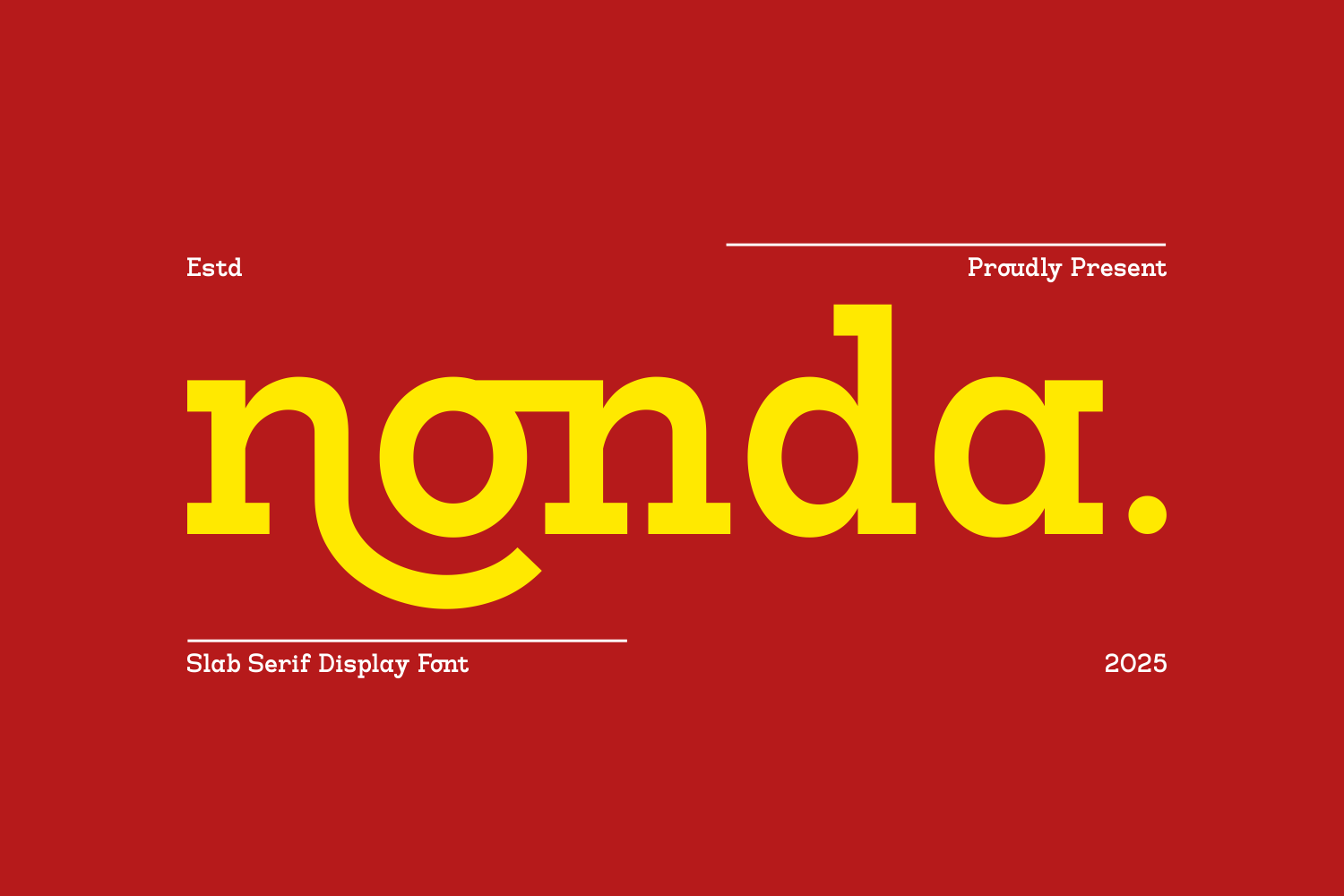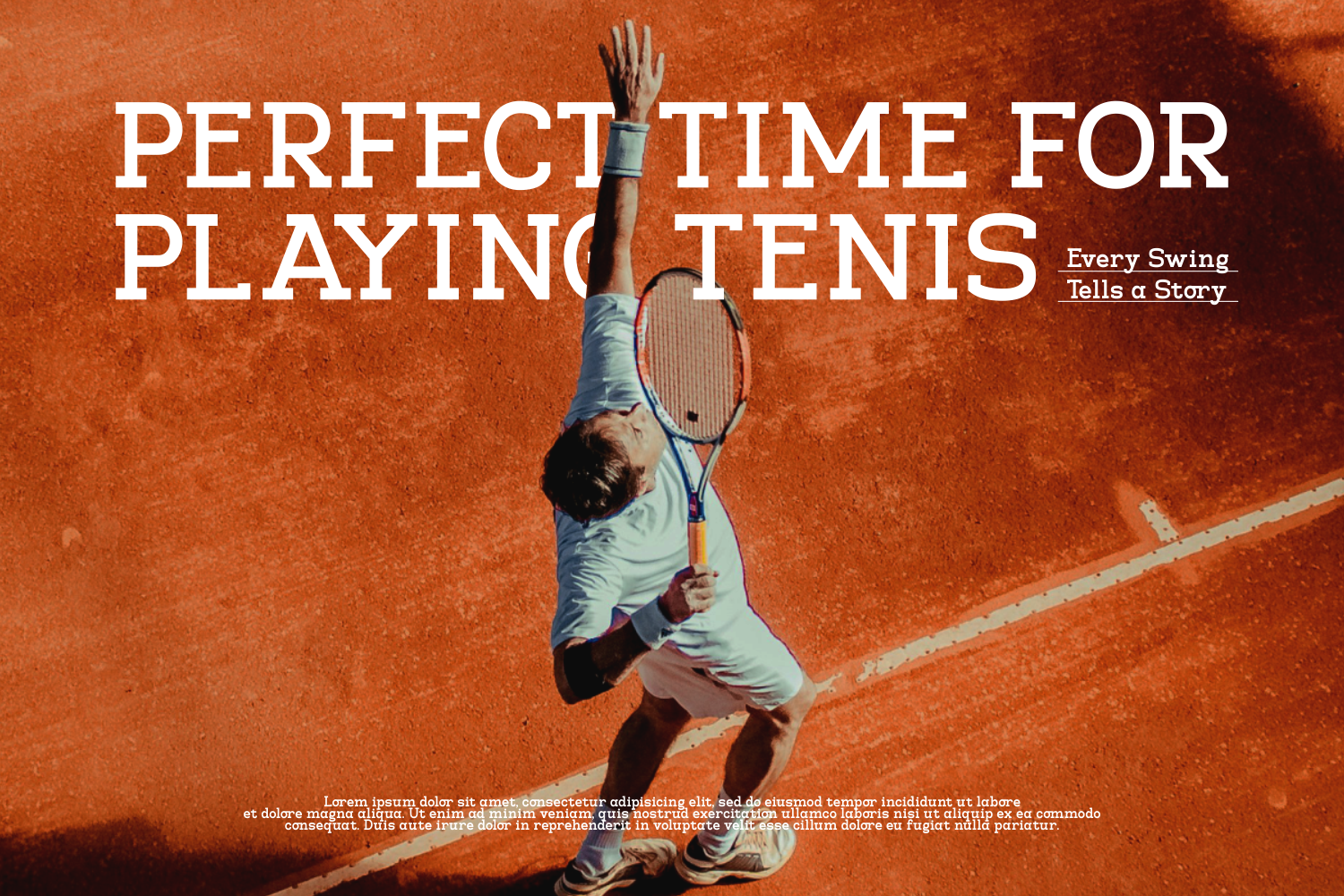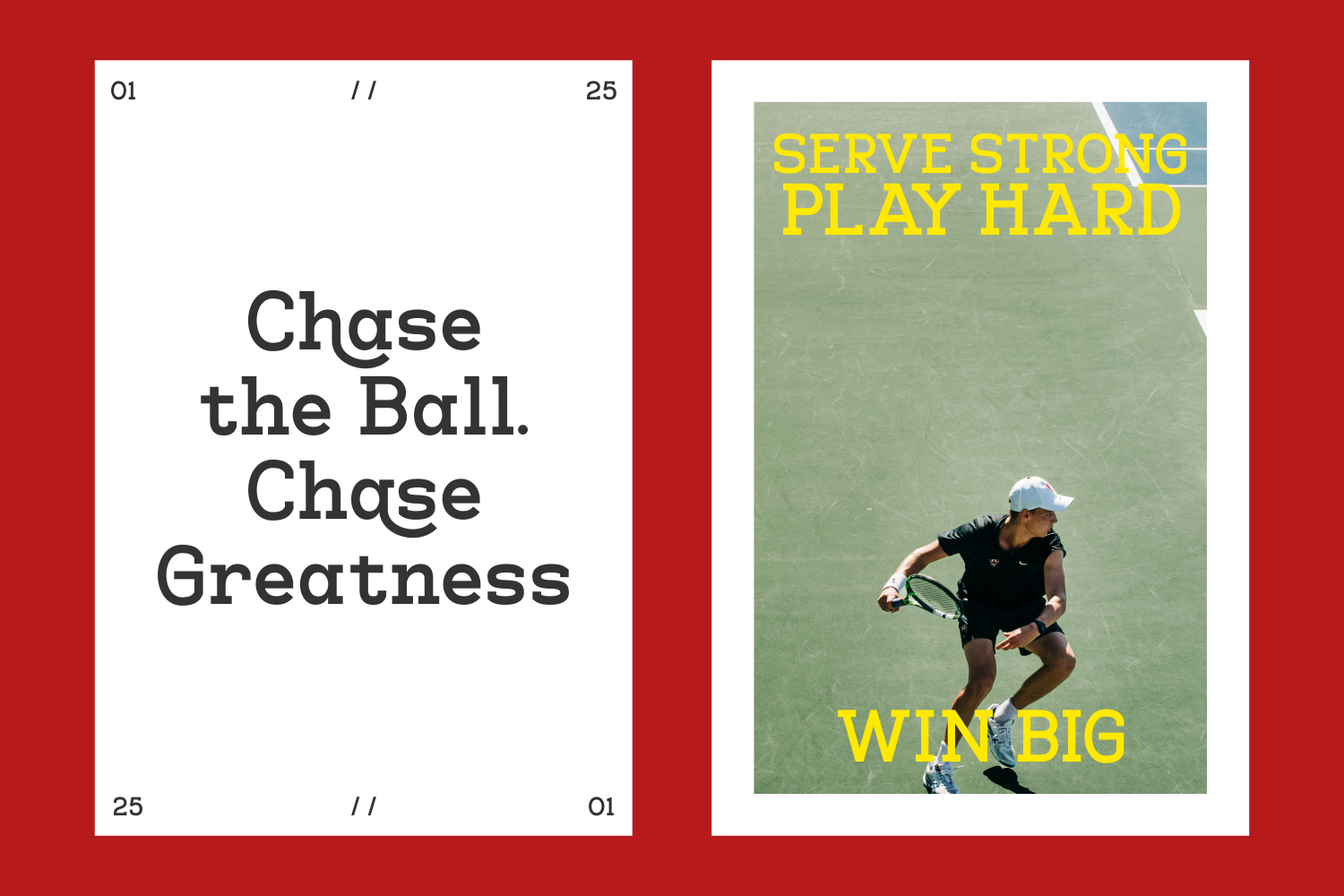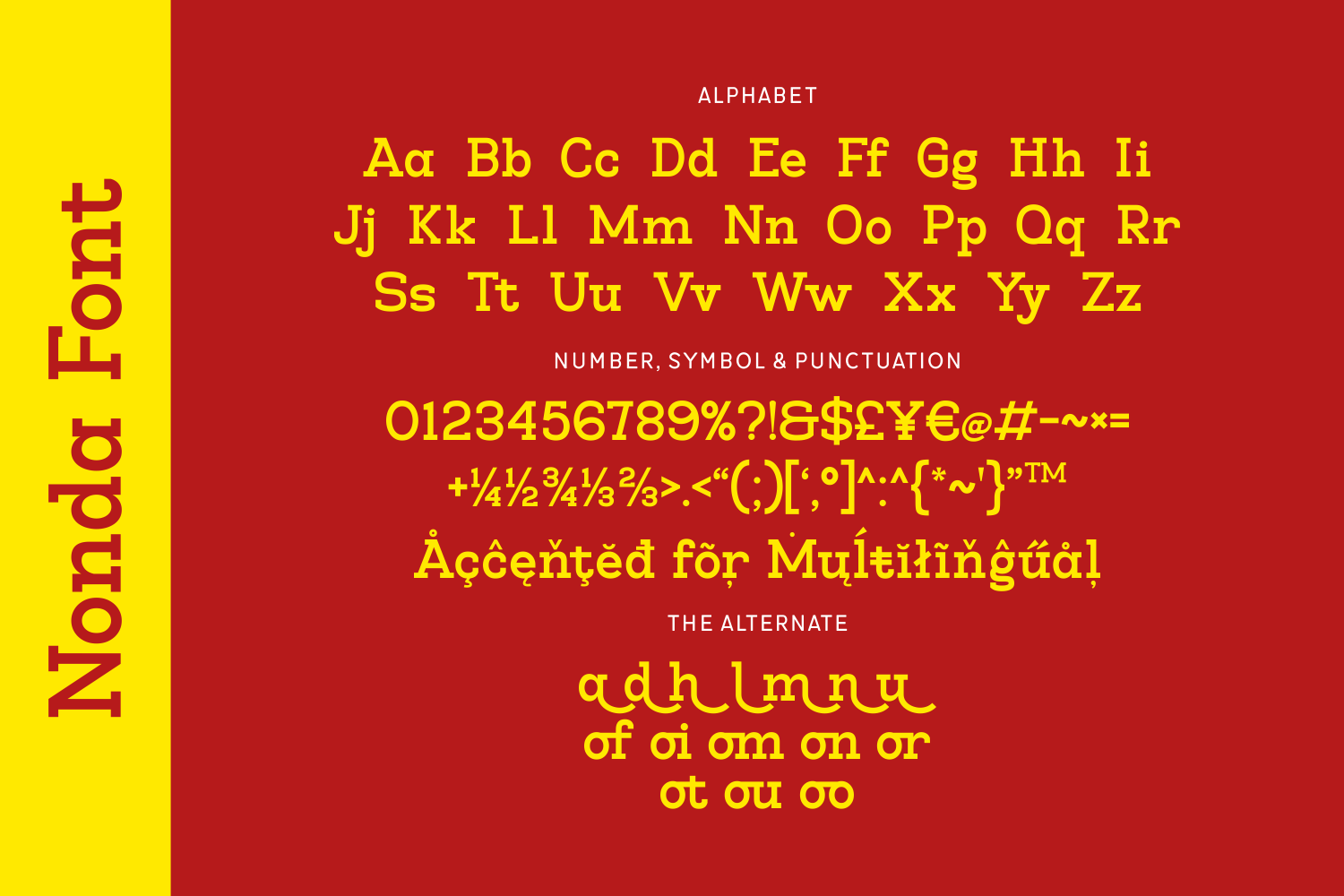
Nonda is a bold slab serif display font with playful curves and retro flair. Perfect for creative branding, editorial headlines, or quirky posters, it brings a dose of personality and fun to your typography.